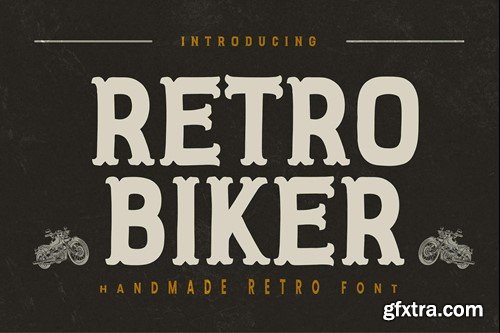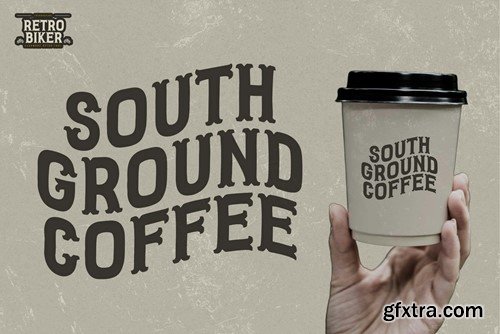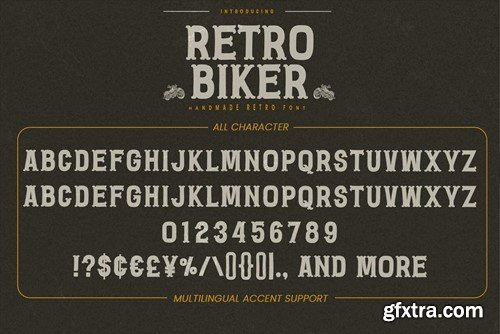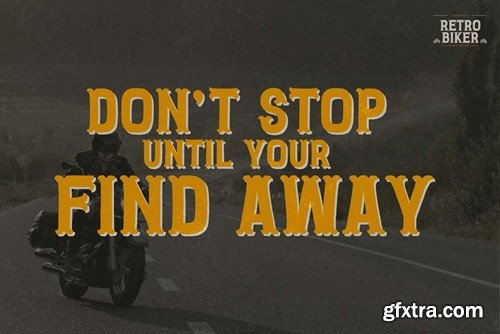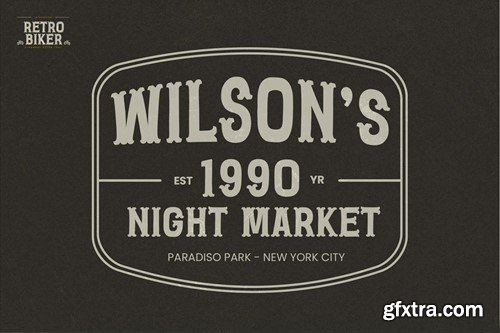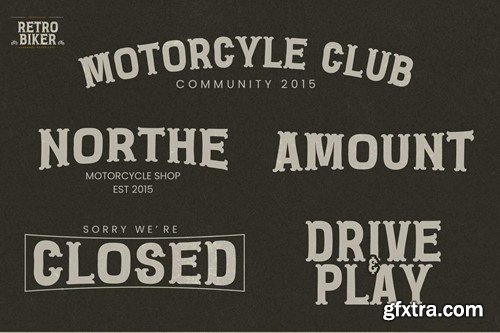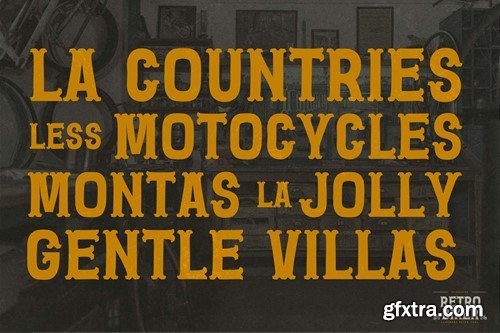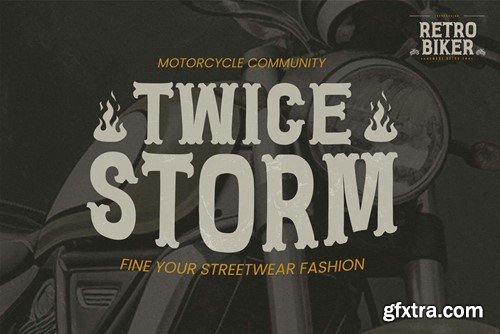
复古摩托车 - 手写复古字体 X3JJT58
Hello Everyone, introduce our new product Font Retro Biker This is a Handmade Retro Font. With classy retro font and decrative sans. What’s Included : Accessible in the Adobe Illustrator, Adobe Photoshop, Adobe InDesign, even work on Microsoft Word. PUA Encoded Characters – Fully accessible without additional design software. Fonts include multilingual support Image used : All photographs/pictures/vector used in the preview are not included, they are intended for illustration purpose only. Cheers! Thank You
This font Retro Biker is great for your next creative project such as logos, printed quotes, invitations, cards, product packaging, headers, Logotype, Letterhead, Poster, Design this font is great for your creative projects such as watermark on photography, and perfect for logos & branding, invitation,advertisements,product designs, stationery, wedding designs,label ,product packaging, special events or anything that need handwritting taste. That is has charming, authentic and relaxed characteristic more natural look to your text.